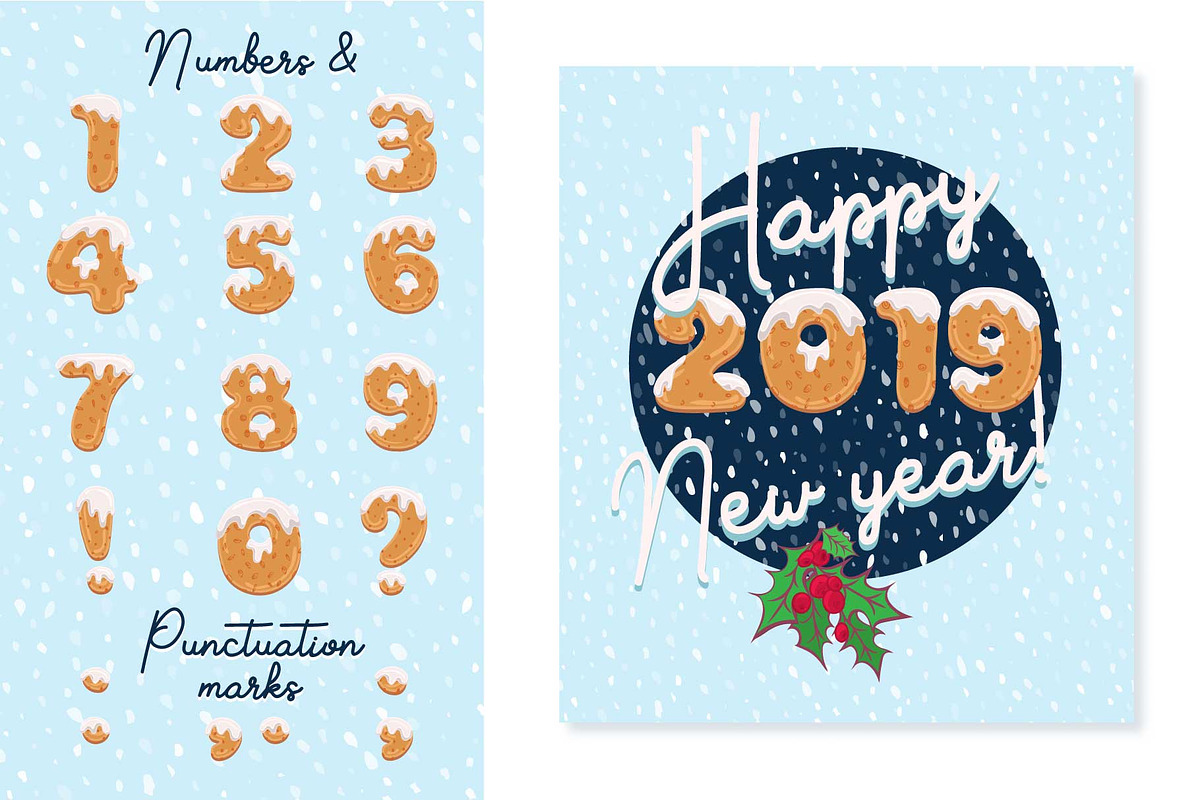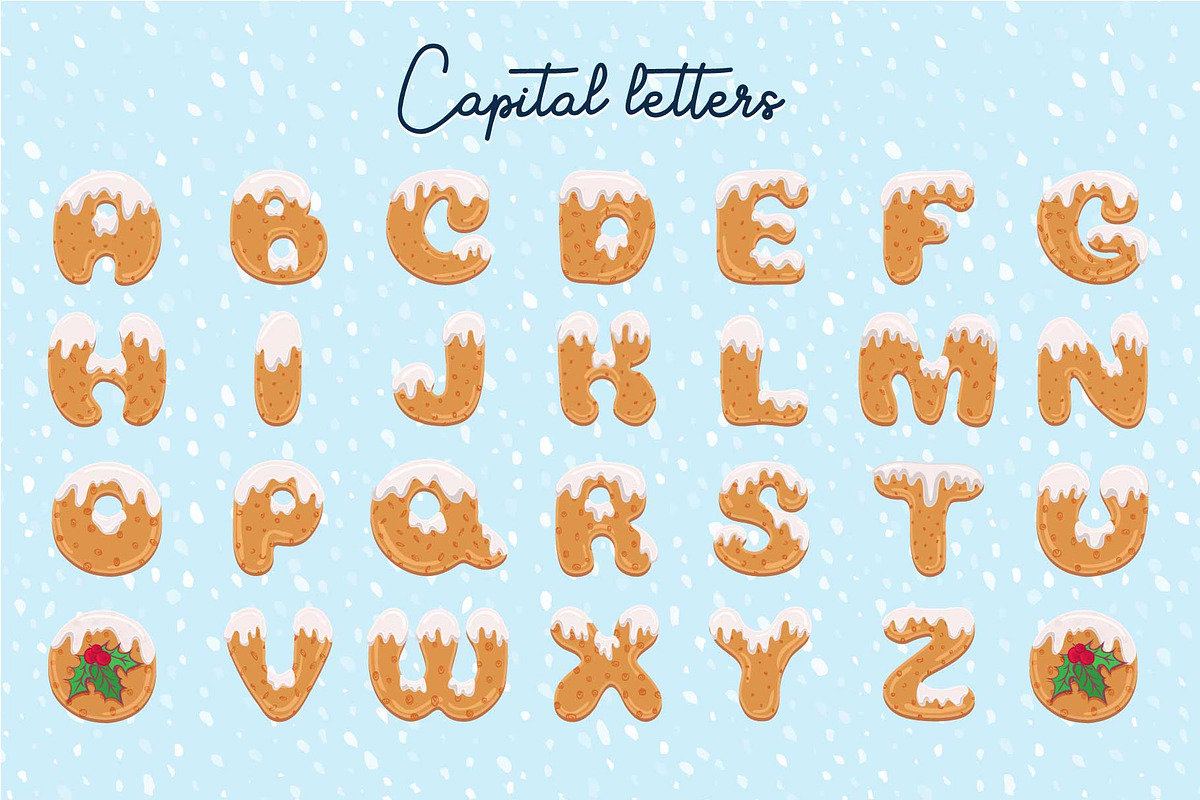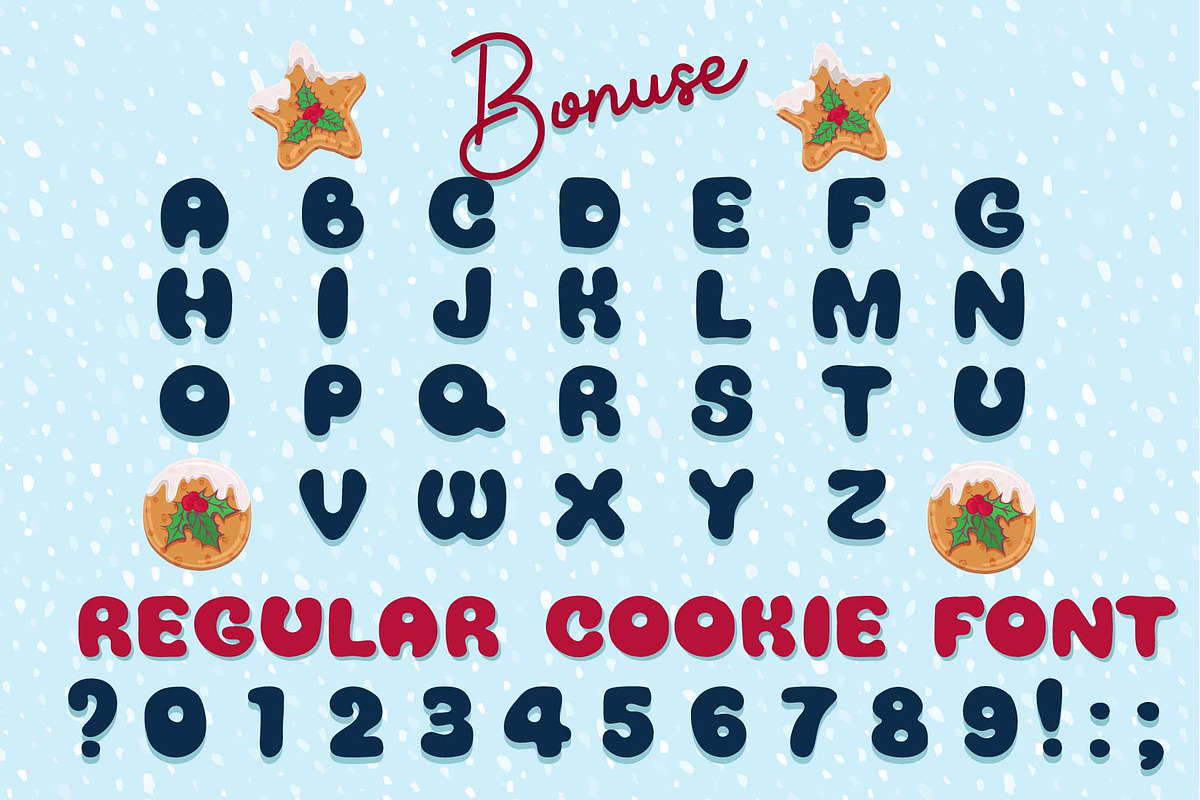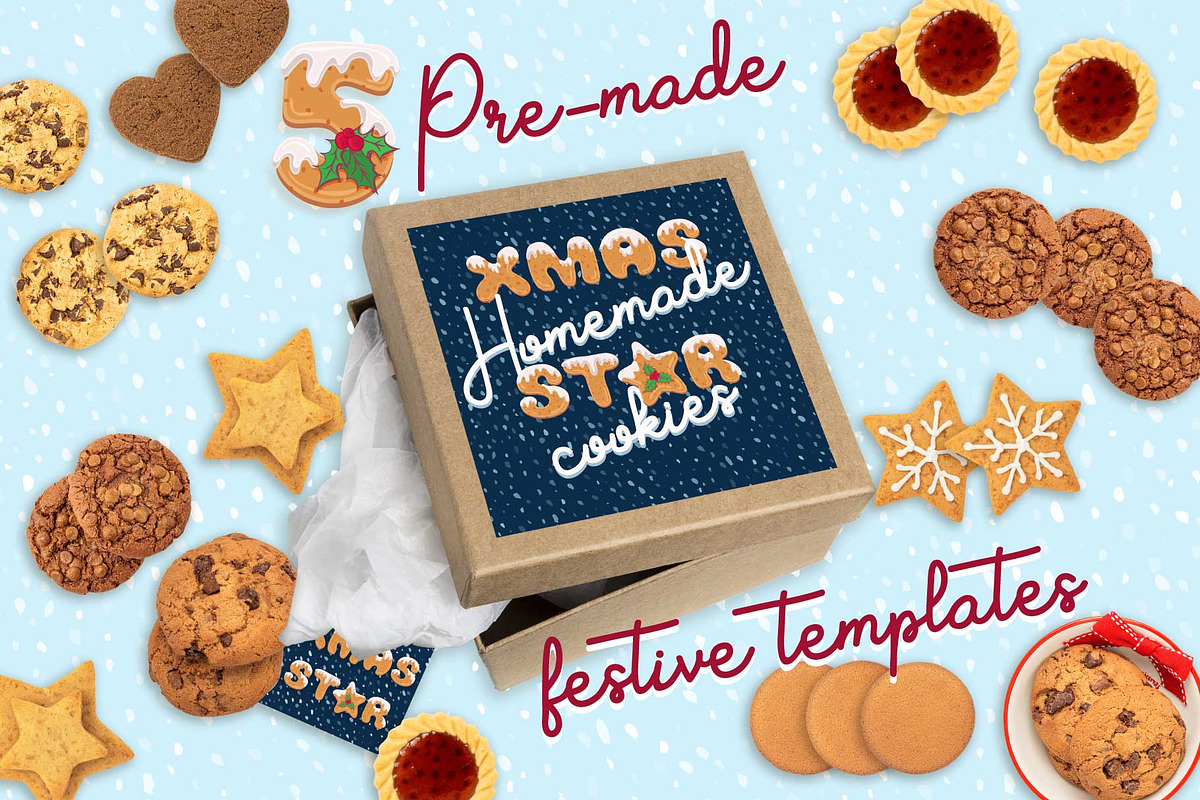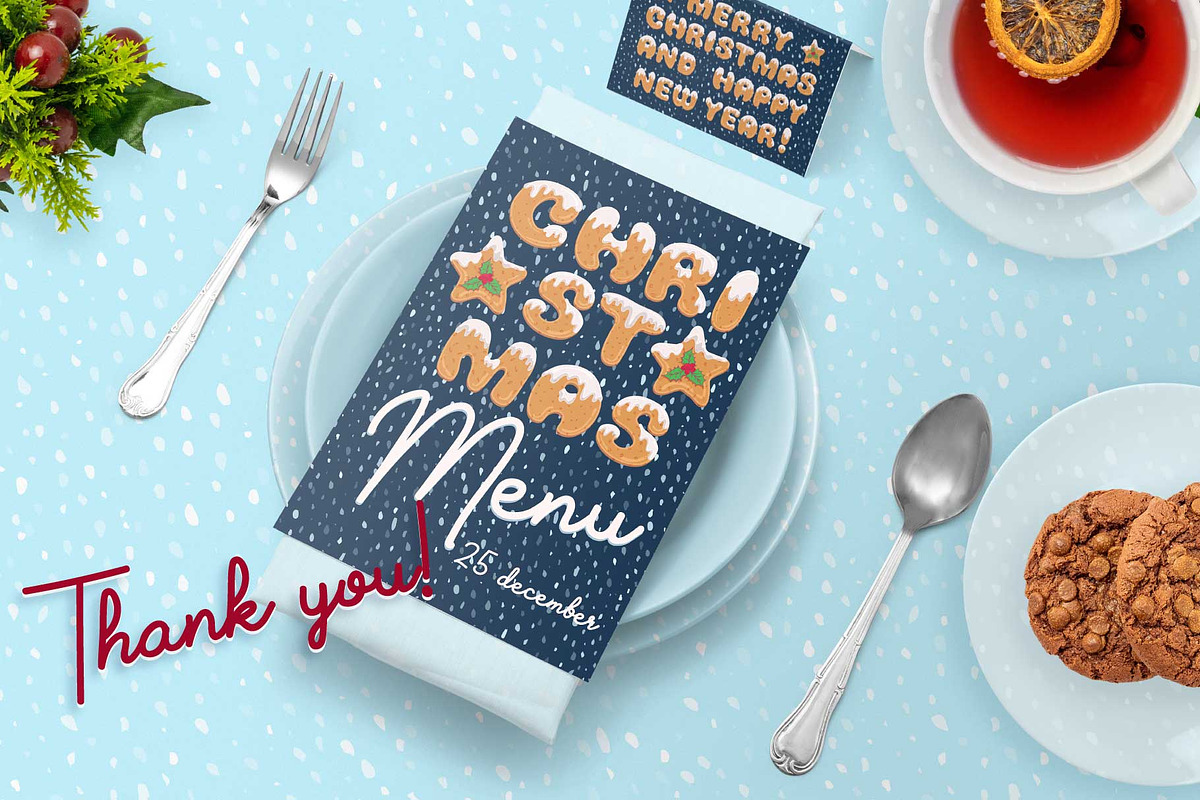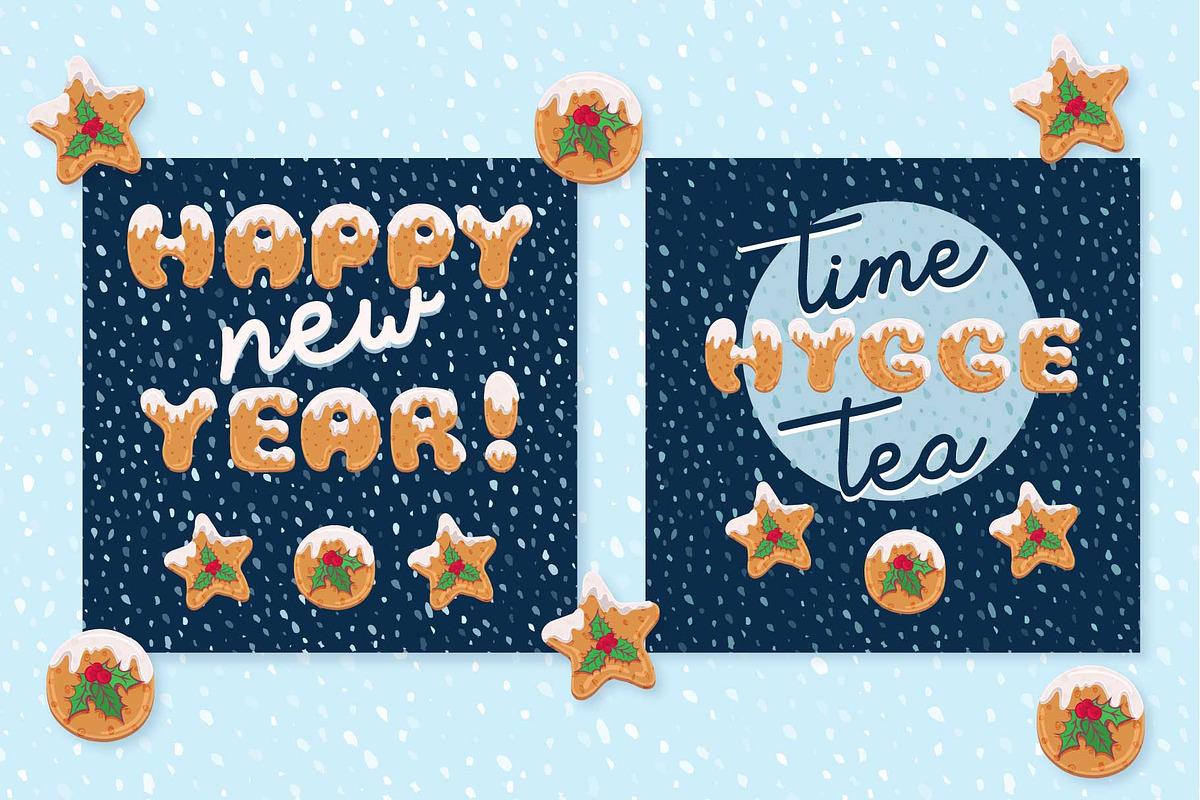
Xmas cookie font family
Xmas cartoon cookie font family Cookie colorful OTF font family. Modern display colorful grotesque font. By creating Cookie colorful font I was inspired by the holiday by homemade glaze cookies for chrisnmas and new year holiday.
It’s a stunning display colorful font, perfect for completely contemporary designs that need a color block appeal. This gorgeous font family comes in both OTF and SVG file types, making this color font versatile enough to suit all your design needs. It works best for festive lettering logotypes, signage and advertising, modern typography posters and design t-shirt, greeting card and web, and other OpenType Font was designed with Fontself Maker in Illustrator CC. Contains CAPITALS letters, NUMERALS, PUNCTUATION.
Bonus: Colorful vector alphabet, numerals and punctuations. With multicolor Vector alphabet, you can manipulate letters in form of vector shapes in Illustrator i.e. and 5 pre-made festive templates
- Contains CAPITALS letters, NUMERALS, PUNCTUATION.